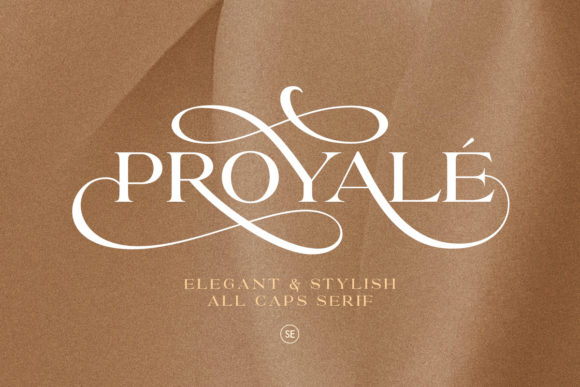
Introducing Proyale Font: The Regal Serif for a Timeless, Rustic Elegance
In a world of digital expression, your words hold immense power to capture hearts and minds. Whether it's a heartfelt message, a captivating story, or an unforgettable brand identity, the font you choose becomes the silent maestro, orchestrating the emotional resonance of your creations.
Nestled amidst our curated collection of typographic masterpieces, Proyale Font stands tall, a classic serif font adorned with timeless grace and elegance. Its very essence exudes a sense of rustic charm, evoking the warmth and nostalgia of bygone eras.
With Proyale, your designs transcend the ordinary, becoming exquisite works of art. Its meticulously crafted glyphs, reminiscent of ancient calligraphy, lend an air of sophistication to every letterform. The smooth curves and delicate serifs create a visual symphony, drawing the reader's eye into the depths of your message.
Harness the power of Proyale to transform your branding endeavors into captivating expressions of artistry. Let its regal presence elevate your logos, imbuing them with an aura of distinction. Unleash its creative potential in t-shirt designs, adorning them with poignant messages that resonate with your audience.
Proyale is not merely a font; it's an experience, an invitation to journey back in time, to an era of handwritten letters and heartfelt sentiments. Its timeless elegance transcends trends, making it the perfect choice for designers seeking a touch of rustic charm, a breath of fresh air in a world craving authenticity.
As a creation of the talented saridezra, Proyale embodies the essence of passion and dedication. Each stroke, each curve, each serif bears the mark of meticulous craftsmanship, ensuring that your designs radiate with an unmatched level of refinement.
Proyale Font: A Legacy of Timeless Elegance Awaiting Your Creative Touch
Dive into the world of Proyale and let your imagination soar. Let its classic charm inspire you, its elegance captivate you, and its versatility empower you to create designs that leave an eternal mark.